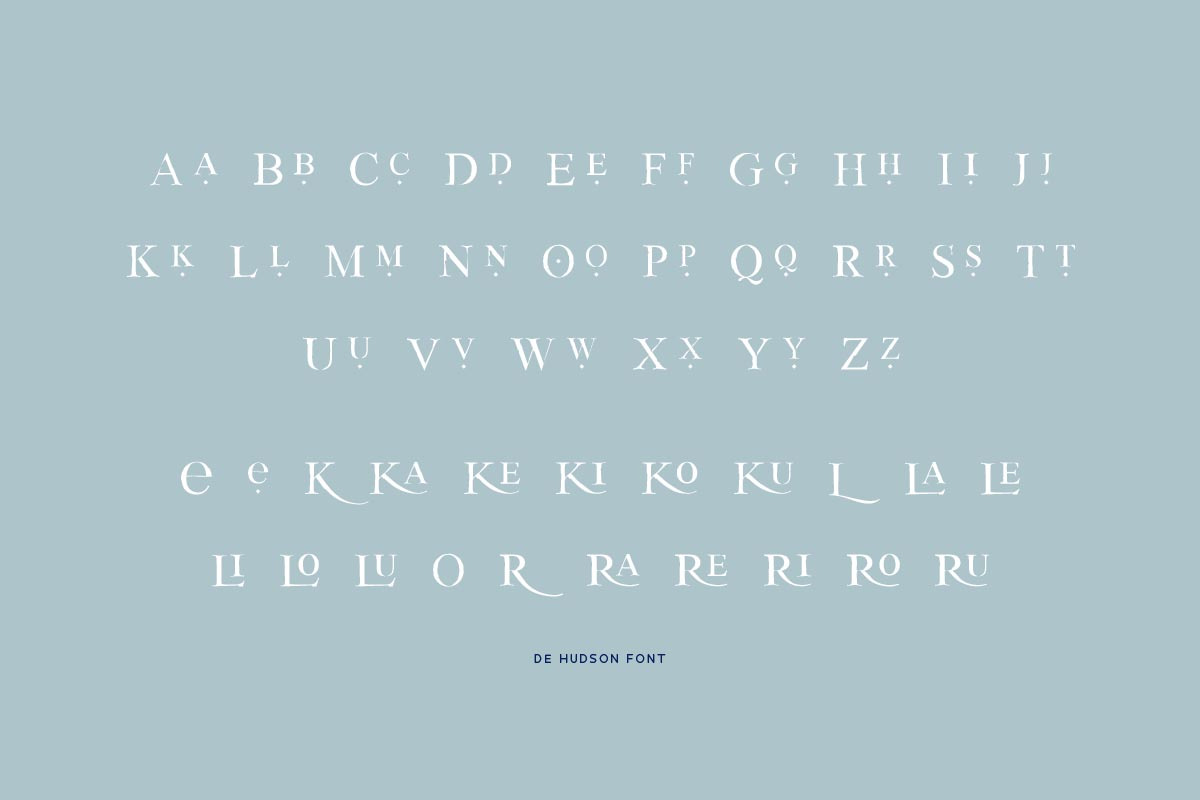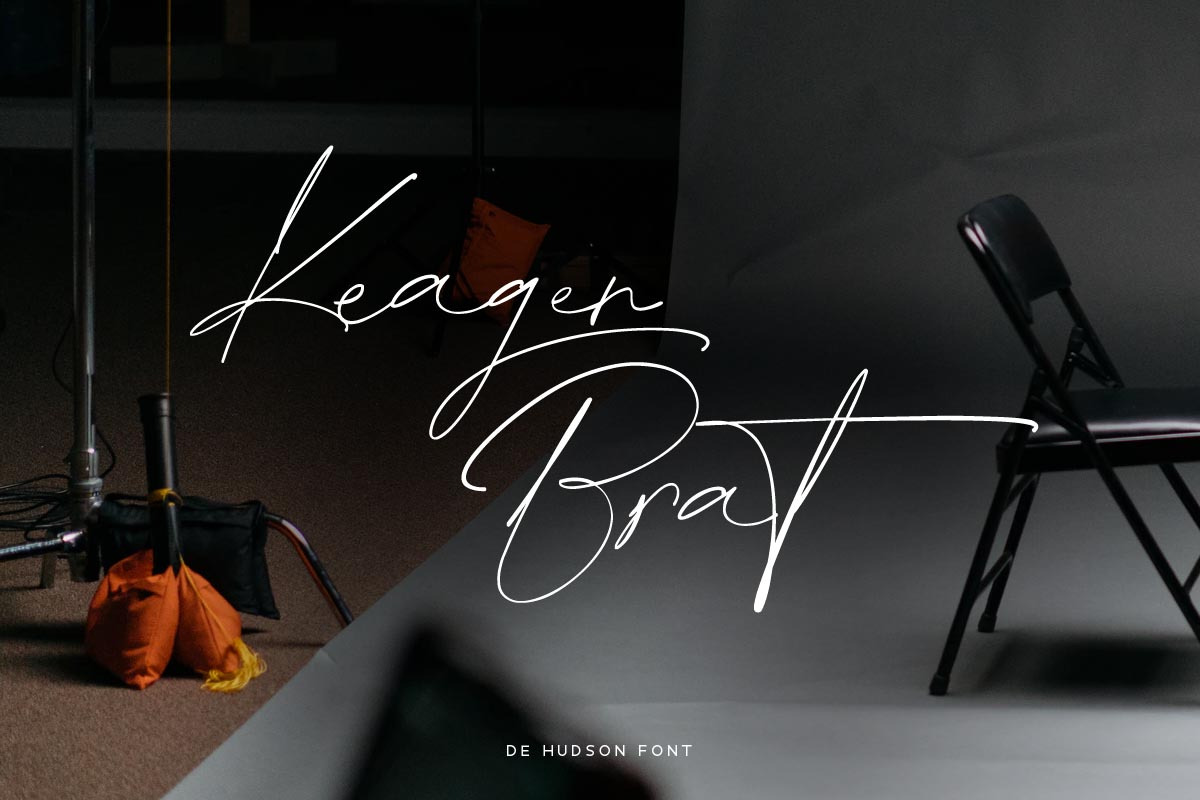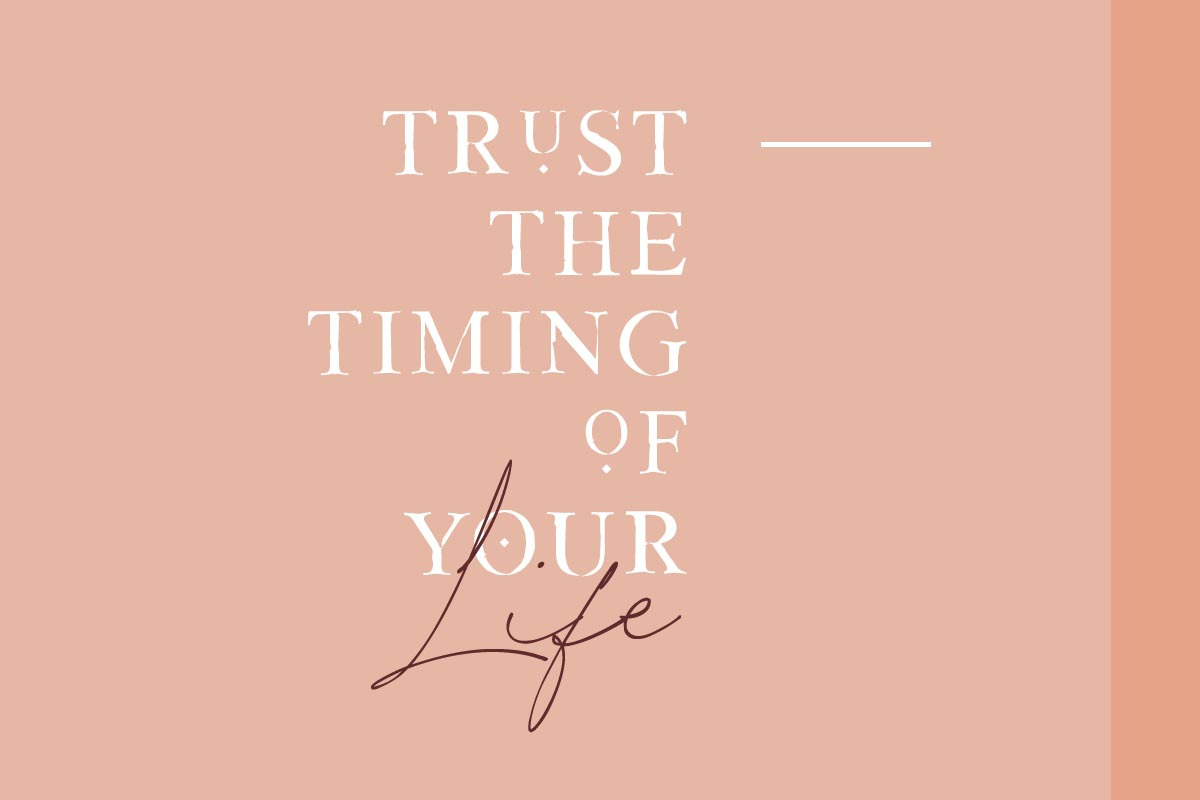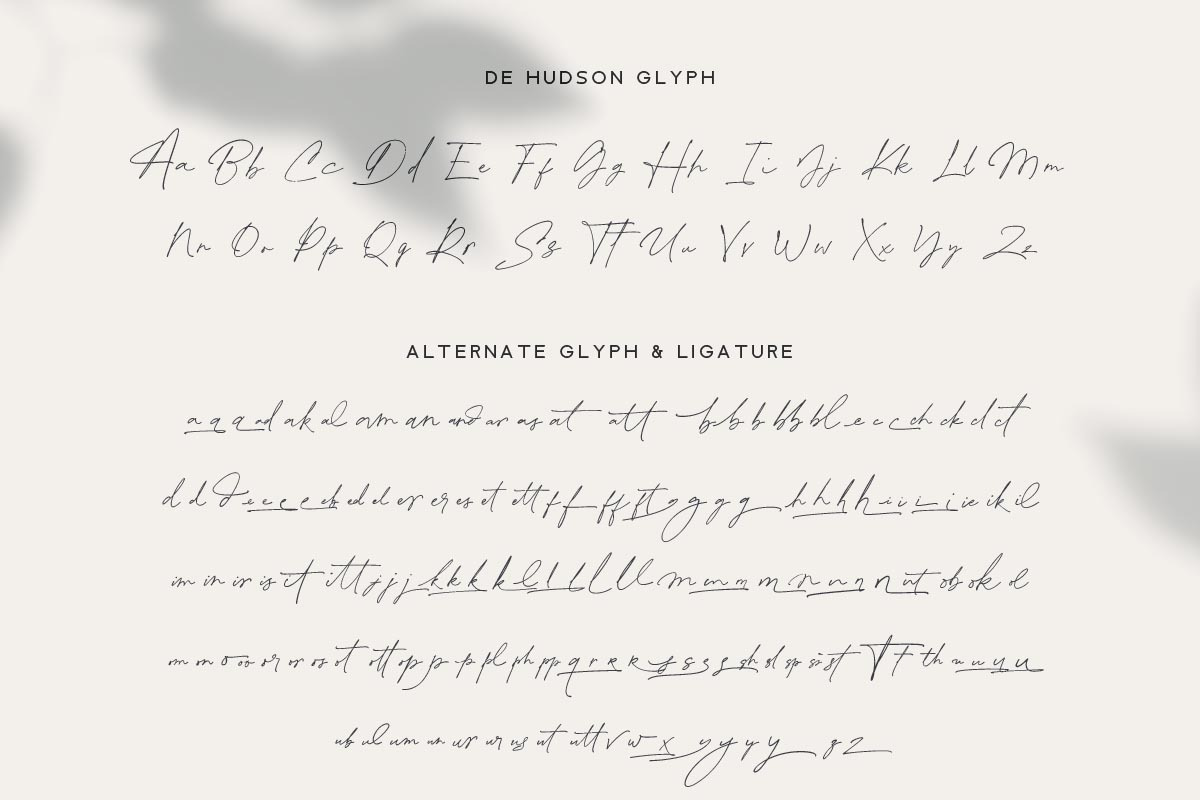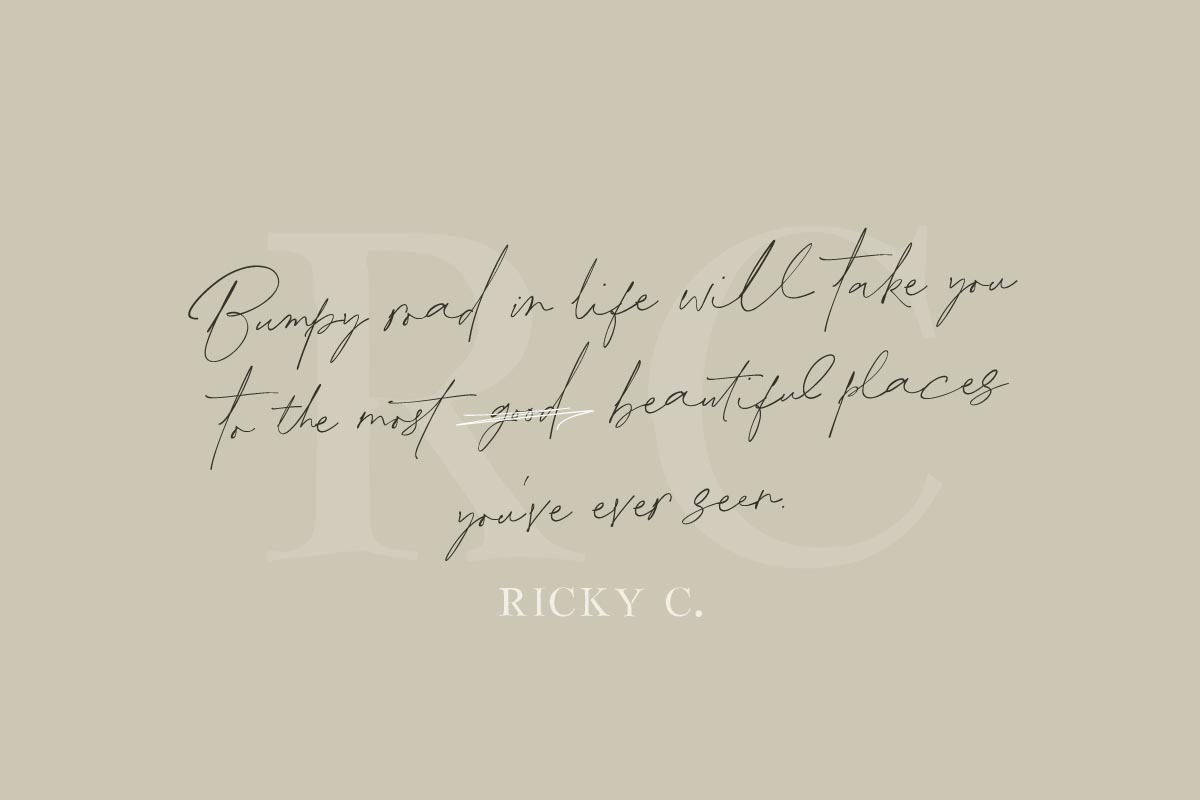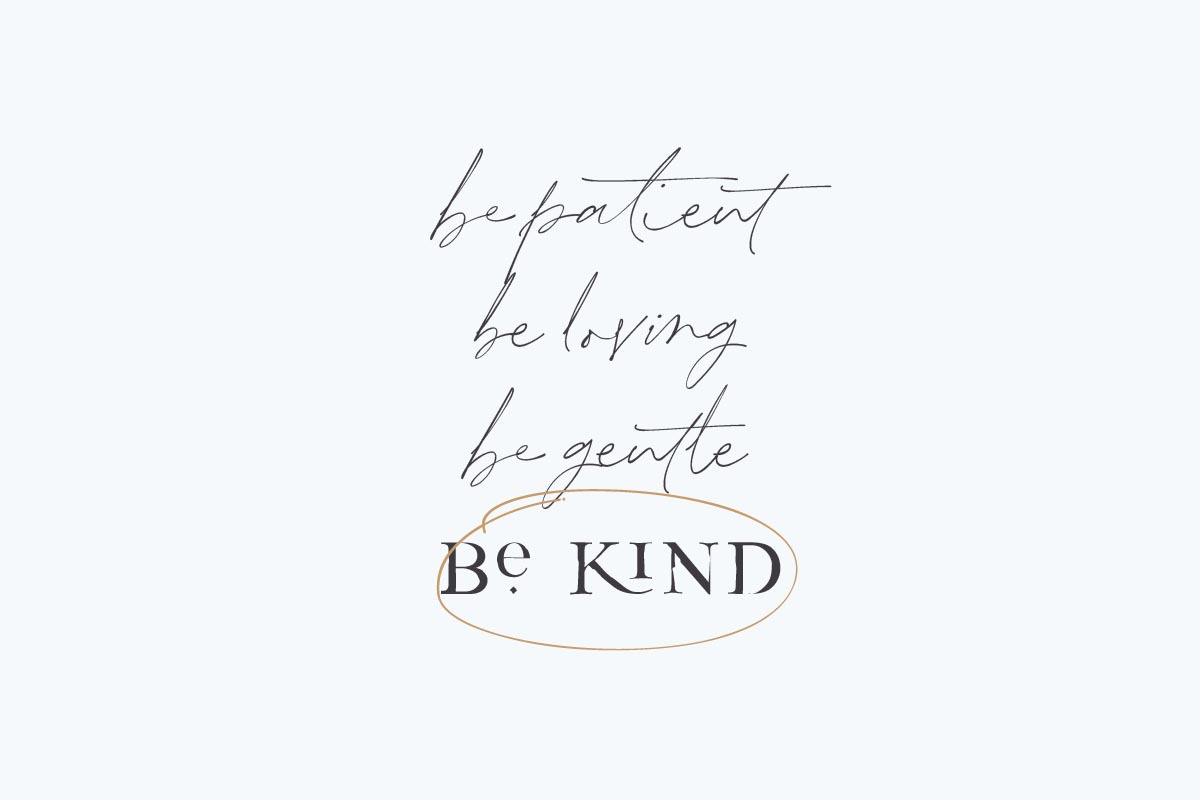
De Hudson
Introducing De Hudson font duo!
a modern signature font with a lot of ligature glyph. Every single letters have been carefully crafted to make your text looks natural hand writing. With modern script style this font will perfect for many different project ex: photography, watermark, quotes, blog header, poster, wedding, branding, logo, fashion, apparel, letter, invitation, stationery, etc.
Foreign languages support: ÀÁÂÃÄÅÆÇÈÉÊËÌÍÎÏÐÑÒÓÔÕÖØÙÚÛÜÝßàáâãäåæçèéêëìíîïðñòóôõöøùúûüýÿ